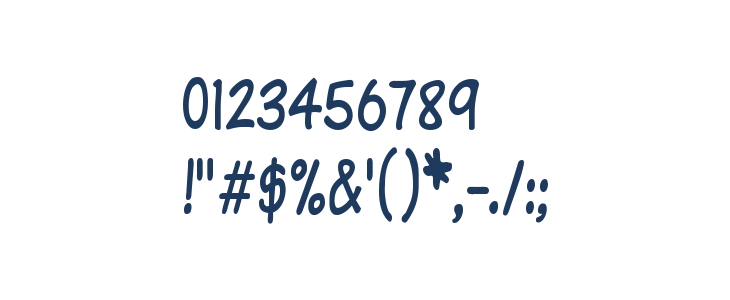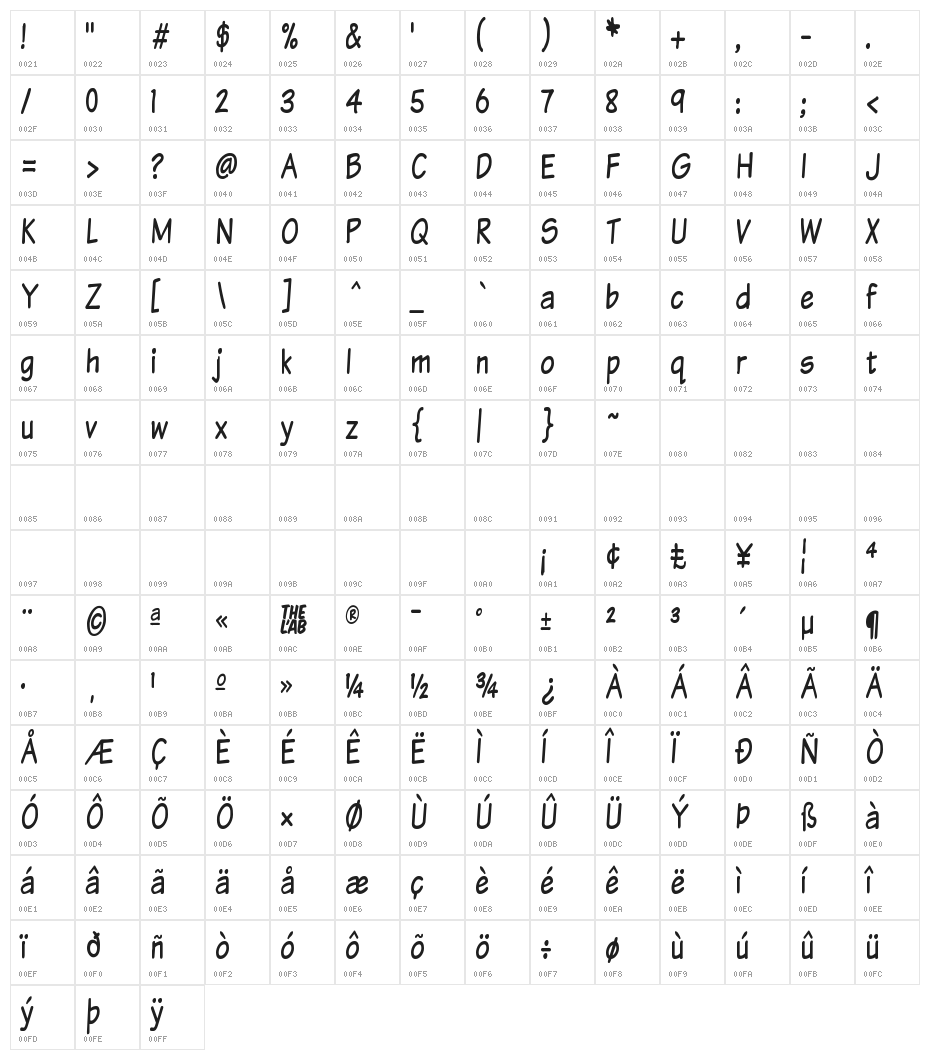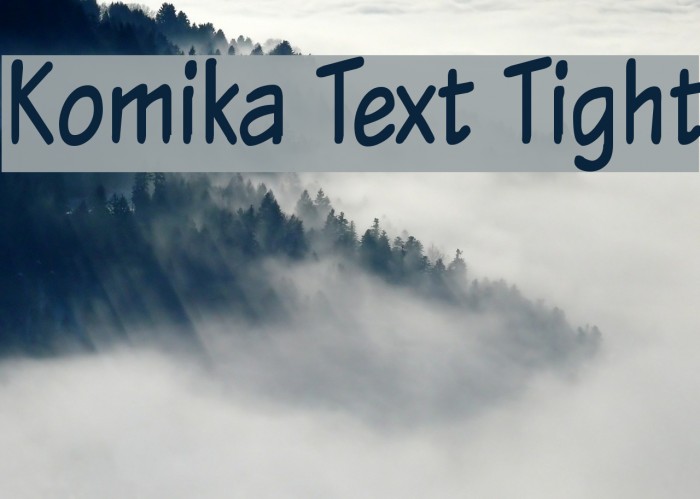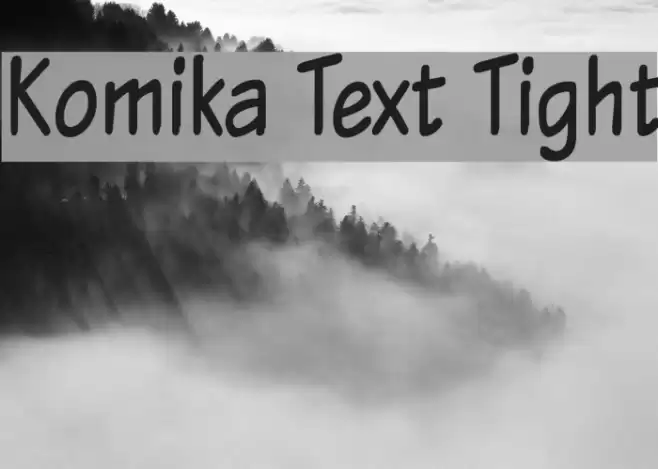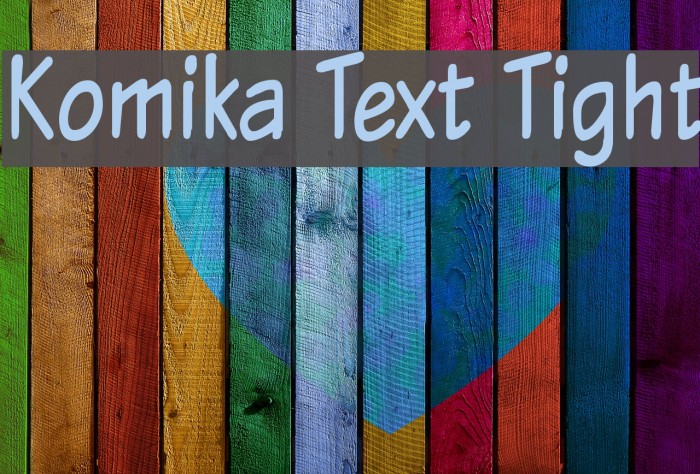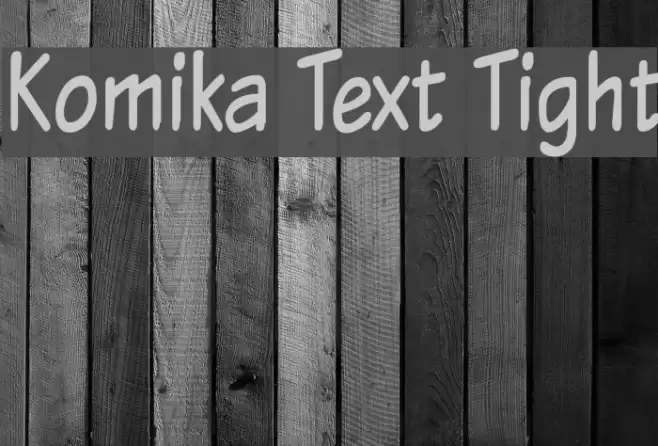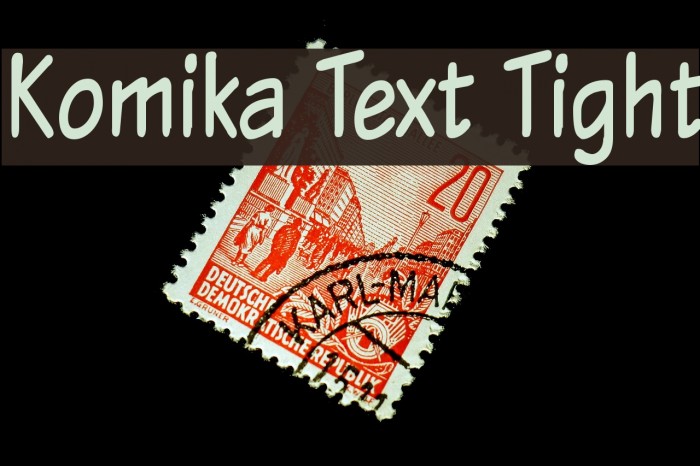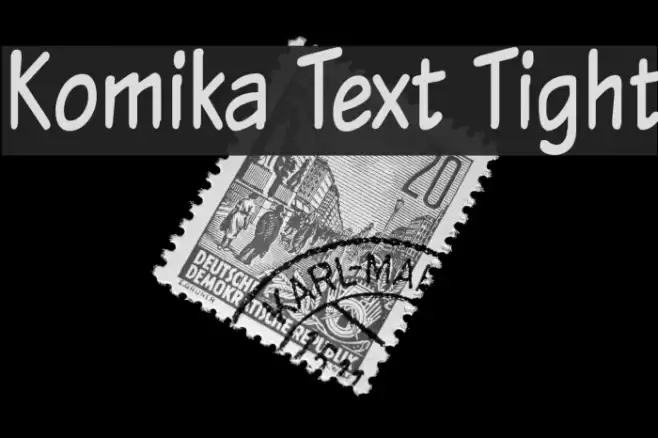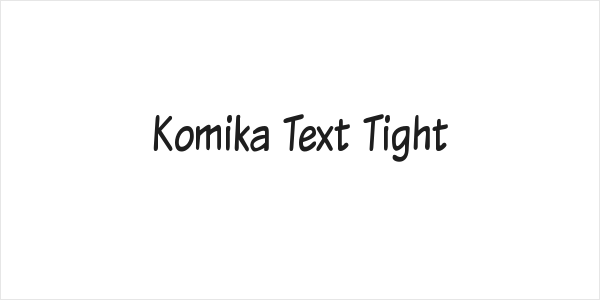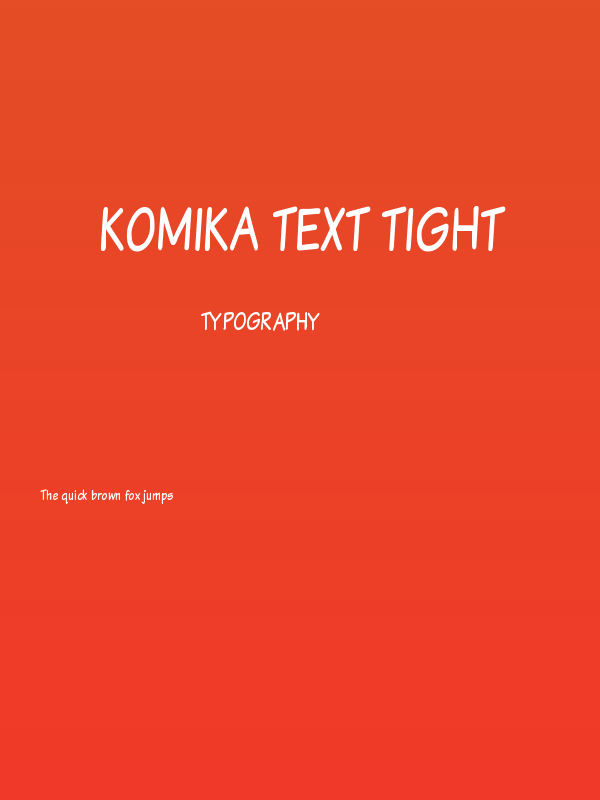
Komika Text Tight Font
Komika Text Tight Description
This playful and bold font features rounded, cartoon-like characters with a friendly and approachable appearance. The uppercase and lowercase letters maintain a consistent style, with a slight slant that adds to the casual feel. The numbers and special characters are equally whimsical, making this font suitable for informal and fun designs. Its thick strokes and rounded edges give it a distinct, hand-drawn look, perfect for projects that require a touch of personality and creativity. The font's tight spacing enhances its compact and cohesive appearance, making it ideal for headlines and titles where space is limited.
| Overall Style | Playful, Casual, Hand-drawn |
| Proposed Projects | Ideal for comic books, children's books, playful branding, and casual event invitations. |